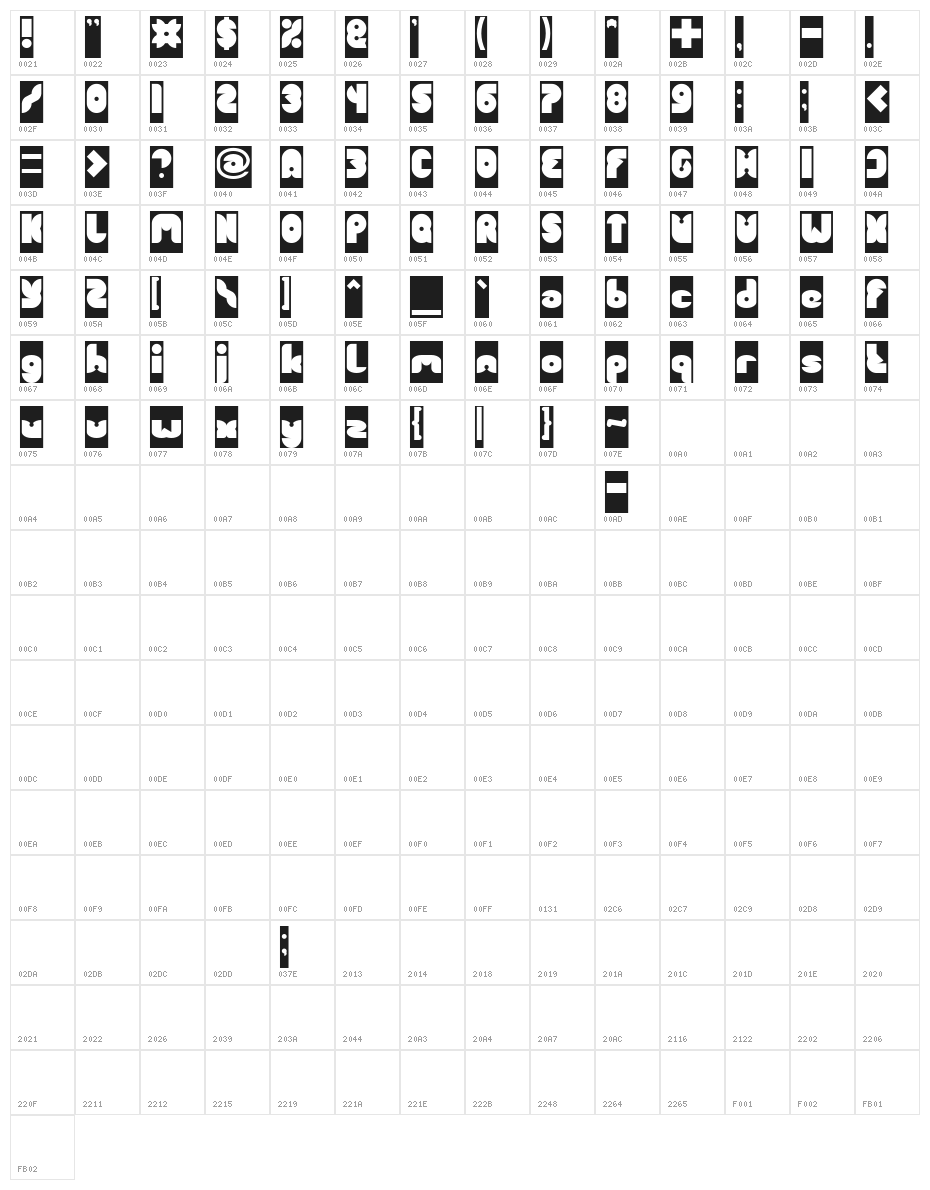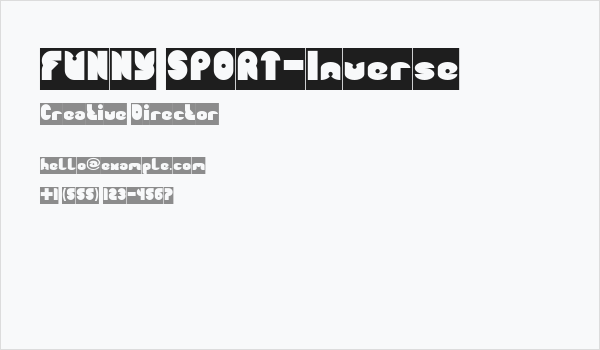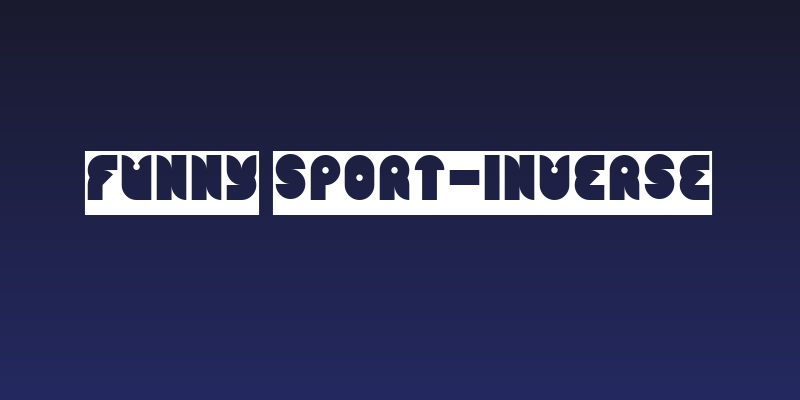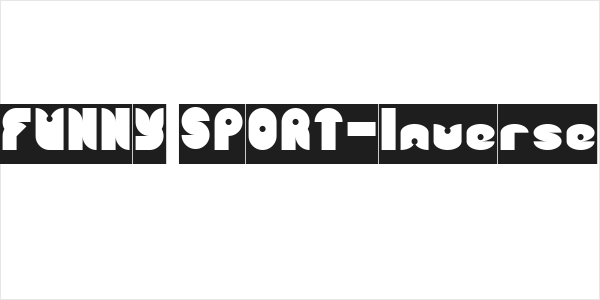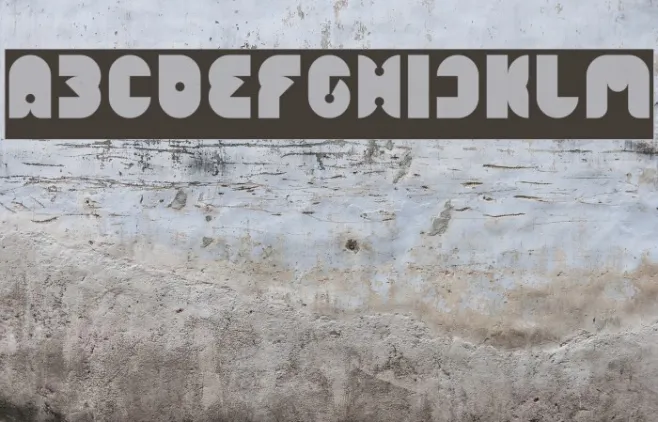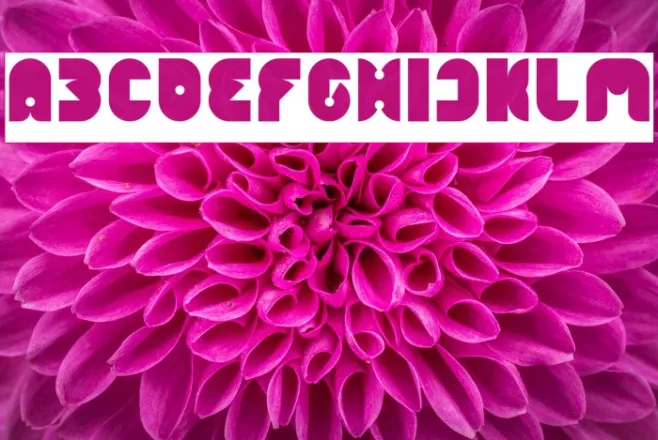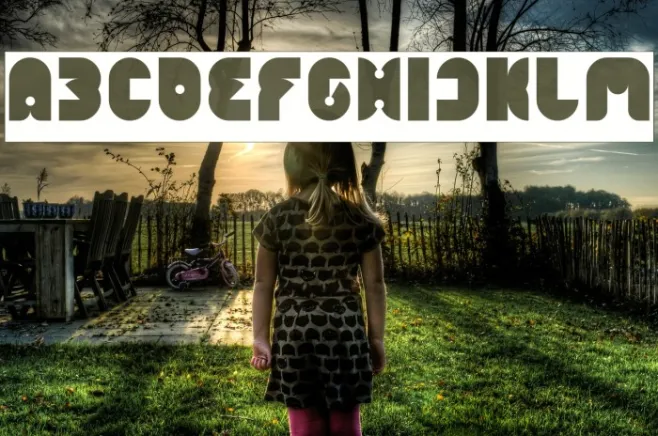
FUNNY SPORT-Inverse Font
FUNNY SPORT-Inverse Description
This playful and bold font features a unique and eye-catching design with thick, rounded shapes and a strong geometric influence. The characters are crafted with a sense of fun and creativity, making them ideal for projects that require a lively and energetic feel. The uppercase and lowercase letters maintain a consistent style, with a focus on circular and semi-circular forms that create a sense of movement and dynamism. The numbers and special characters follow the same design principles, ensuring a cohesive look across all elements. This font is perfect for projects that aim to capture attention and convey a sense of excitement and modernity.
| Proposed Projects | Ideal for sports branding, children's books, playful posters, and modern advertising campaigns. |